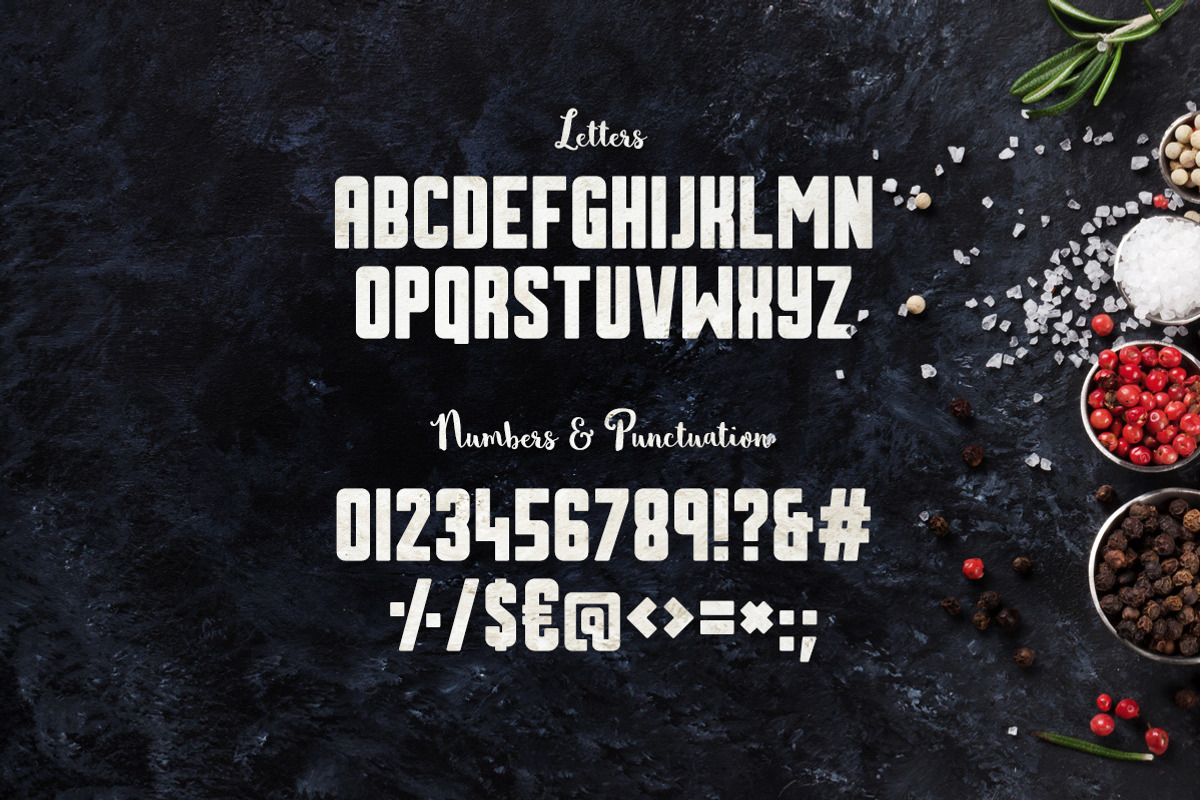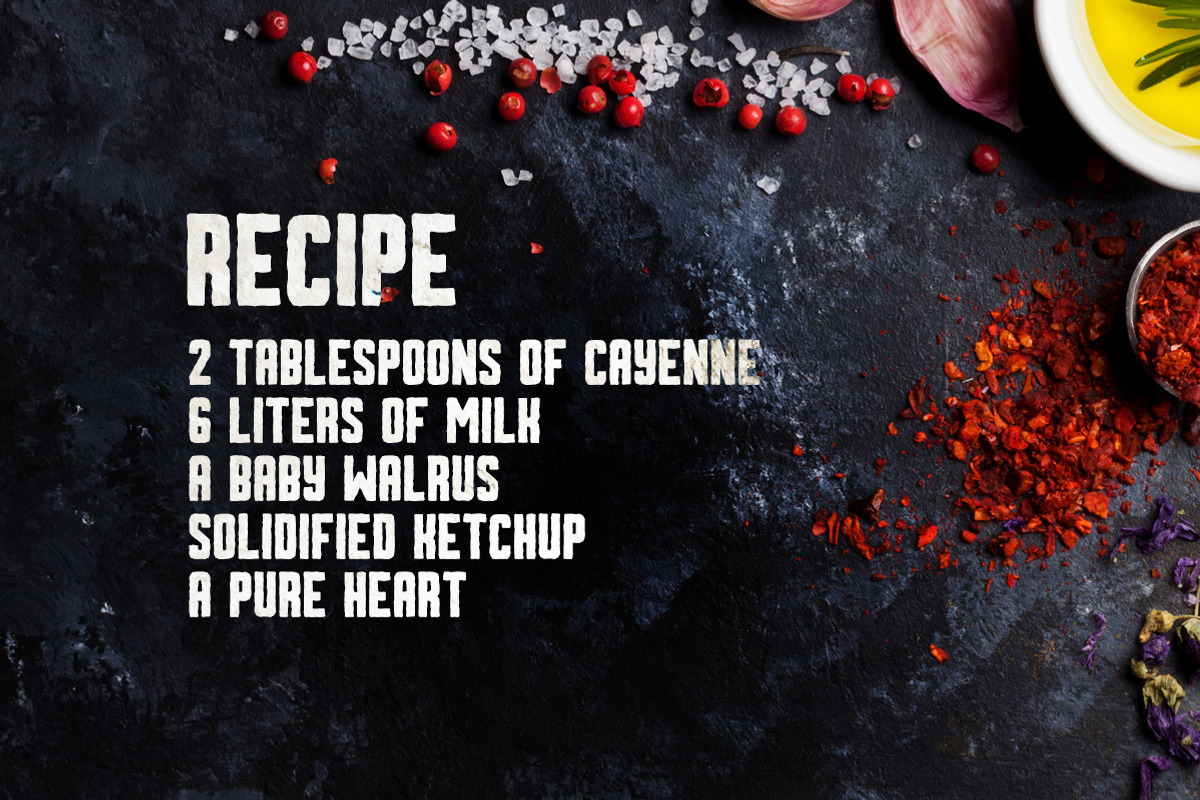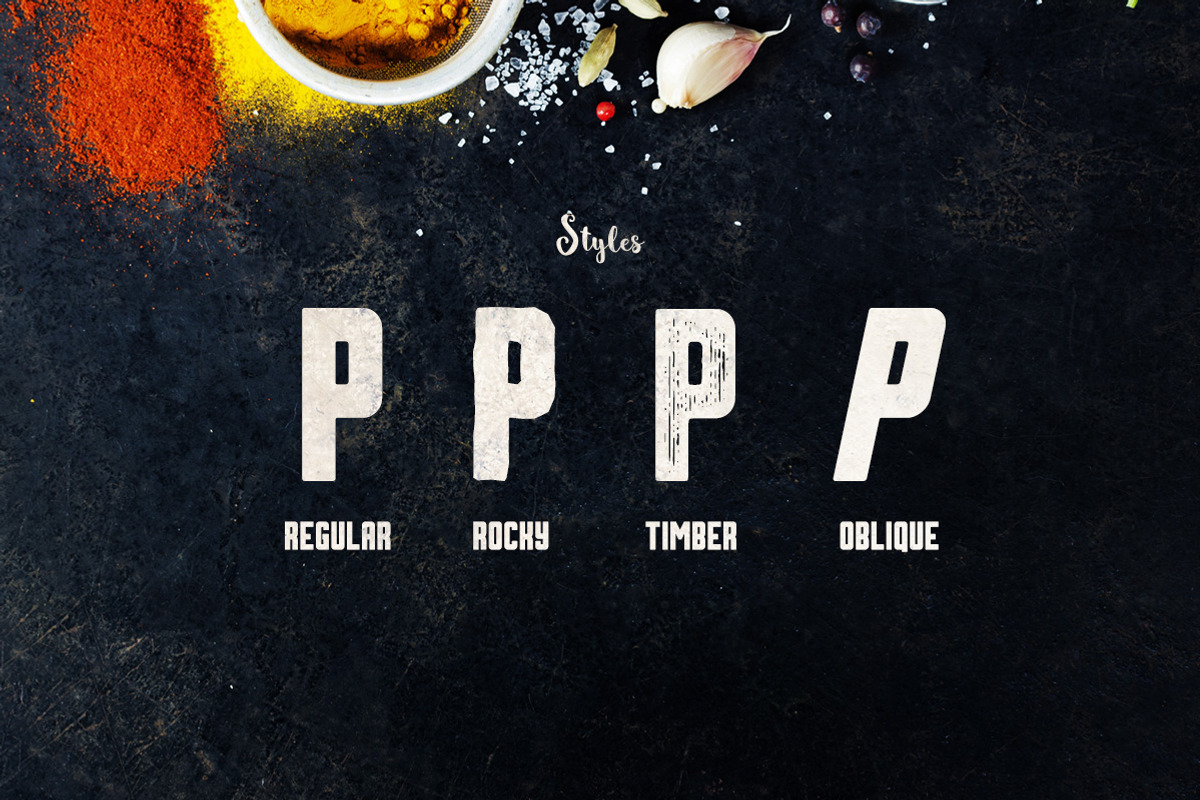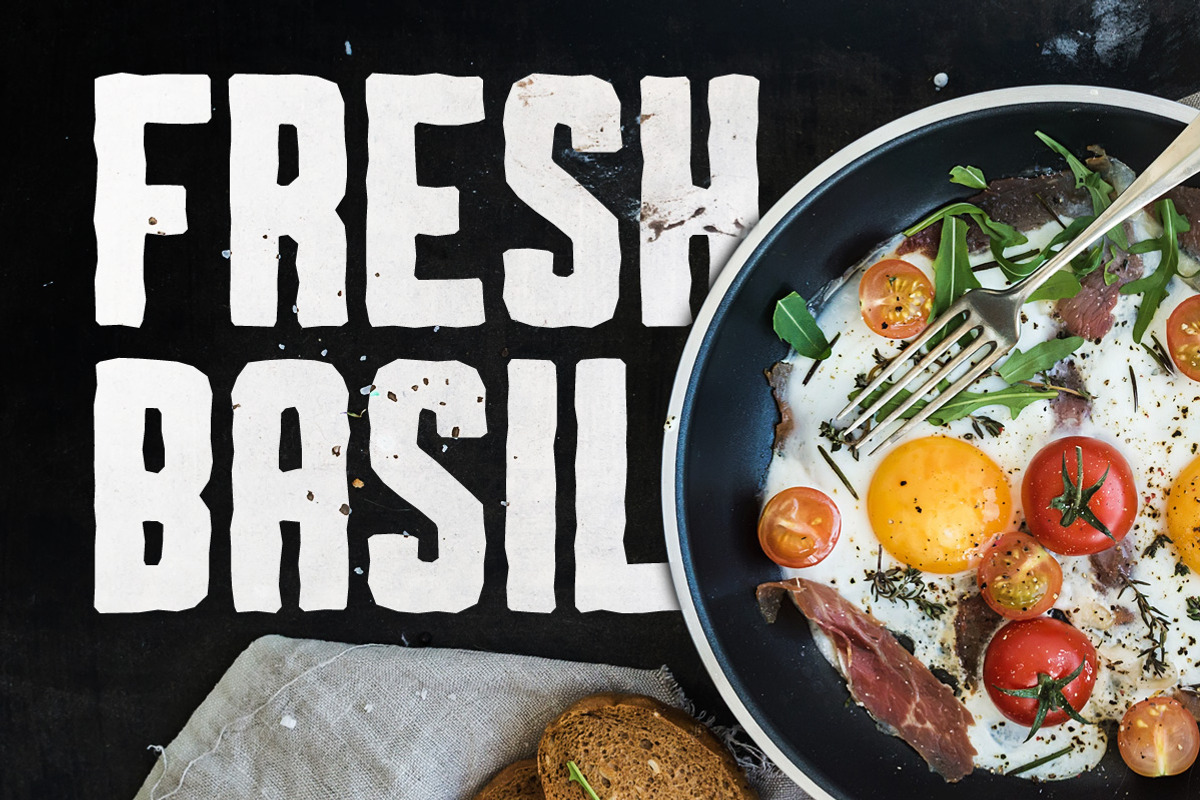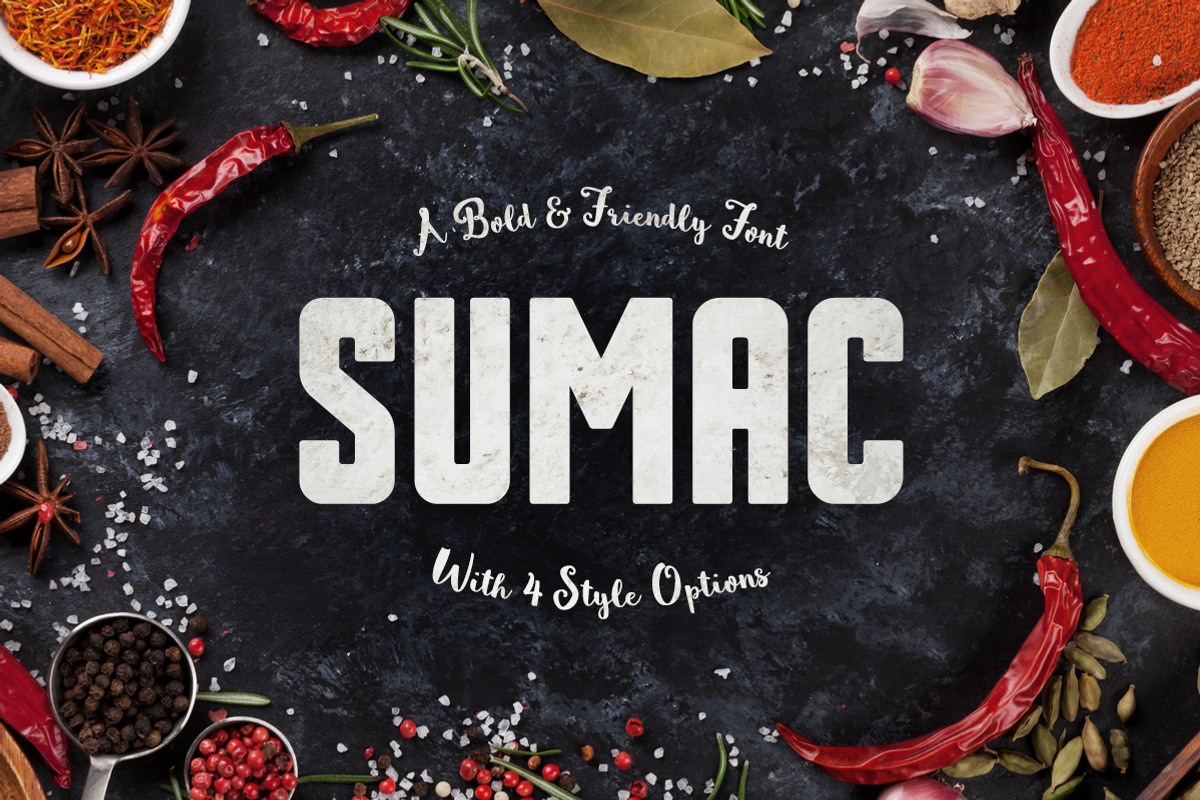
Sumac Typeface
Sumac Typeface by Tugcu Design Co. is a font selected for branding, posters, packaging, typography.
- Sumac comes in 4 styles and includes uppercase multilingual letters, numbers and punctuation.
- Sumac Regular
- Sumac Oblique
- Sumac Rocky
- Sumac Timber
Why Sumac Typeface is worth a look
Sumac Typeface by Tugcu Design Co. fits naturally into Branding, posters, packaging, typography.